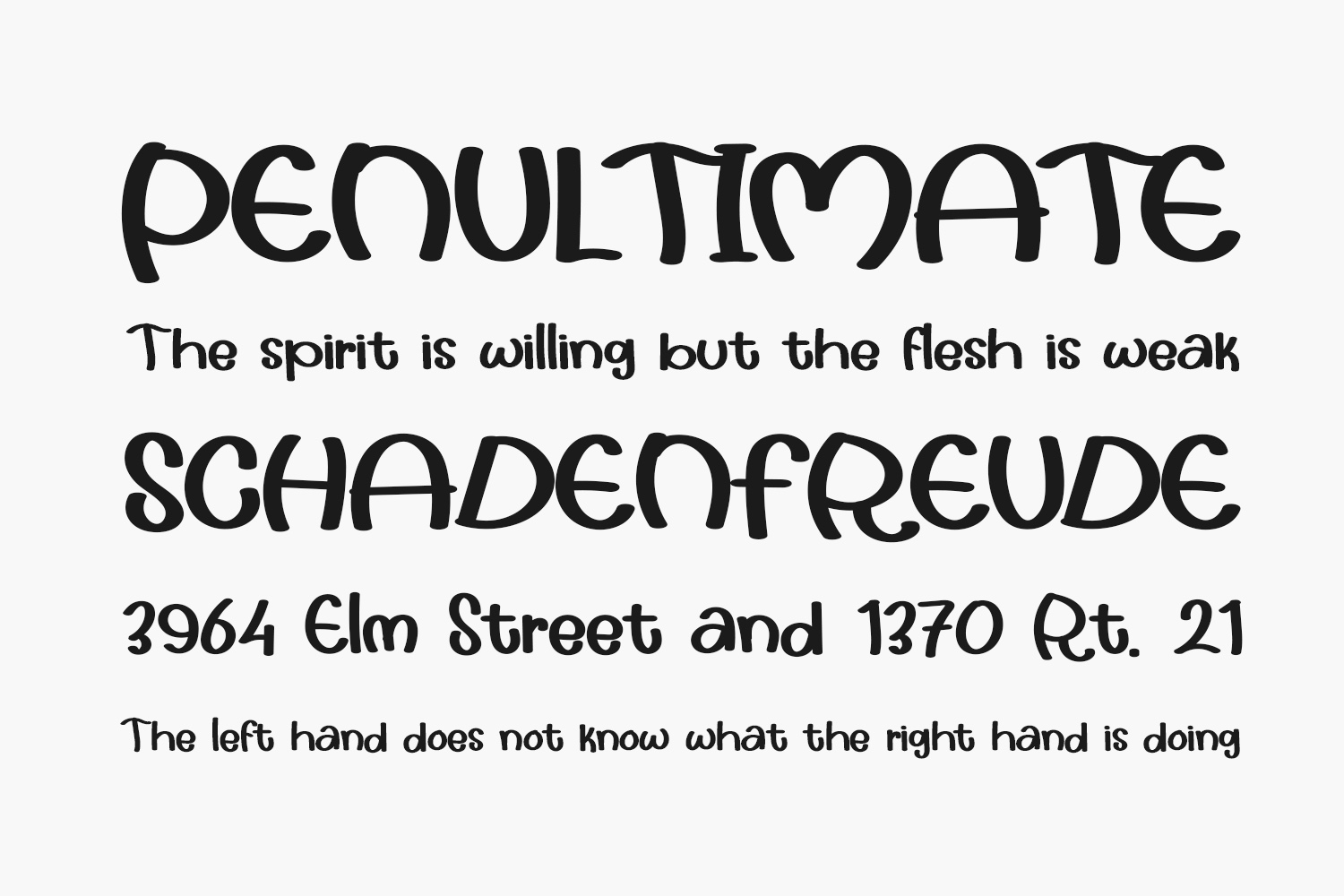
Hello Molly Free Font is a sweet handwritten font. Its unique style makes it incredibly fitting to a large pool of designs. The only limit is your imagination. Hello Molly Free Font was designed by Eddy Goodboy and is free for personal use only. Please purchase the full version for commercial use.
Designed by Eddy Goodboy